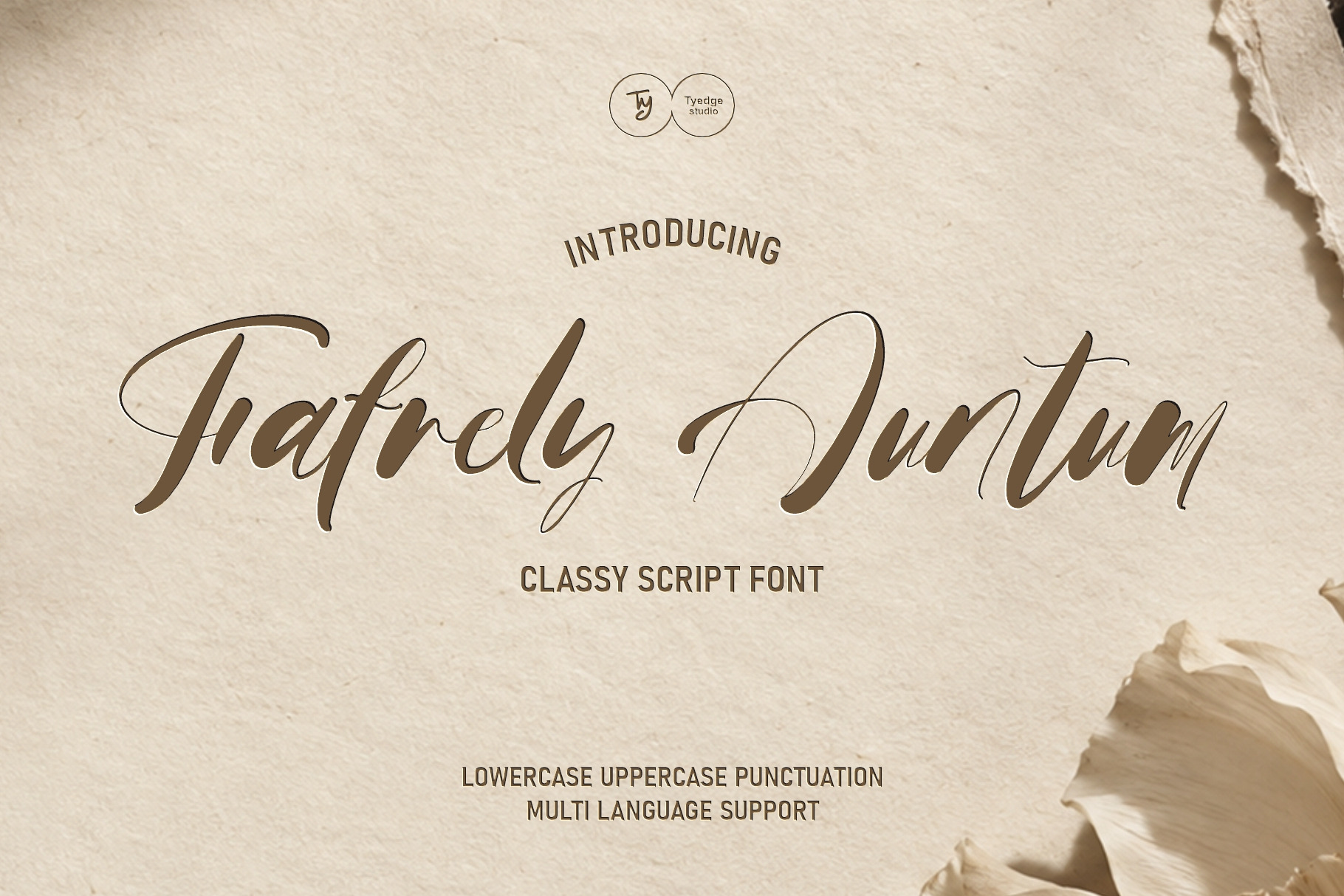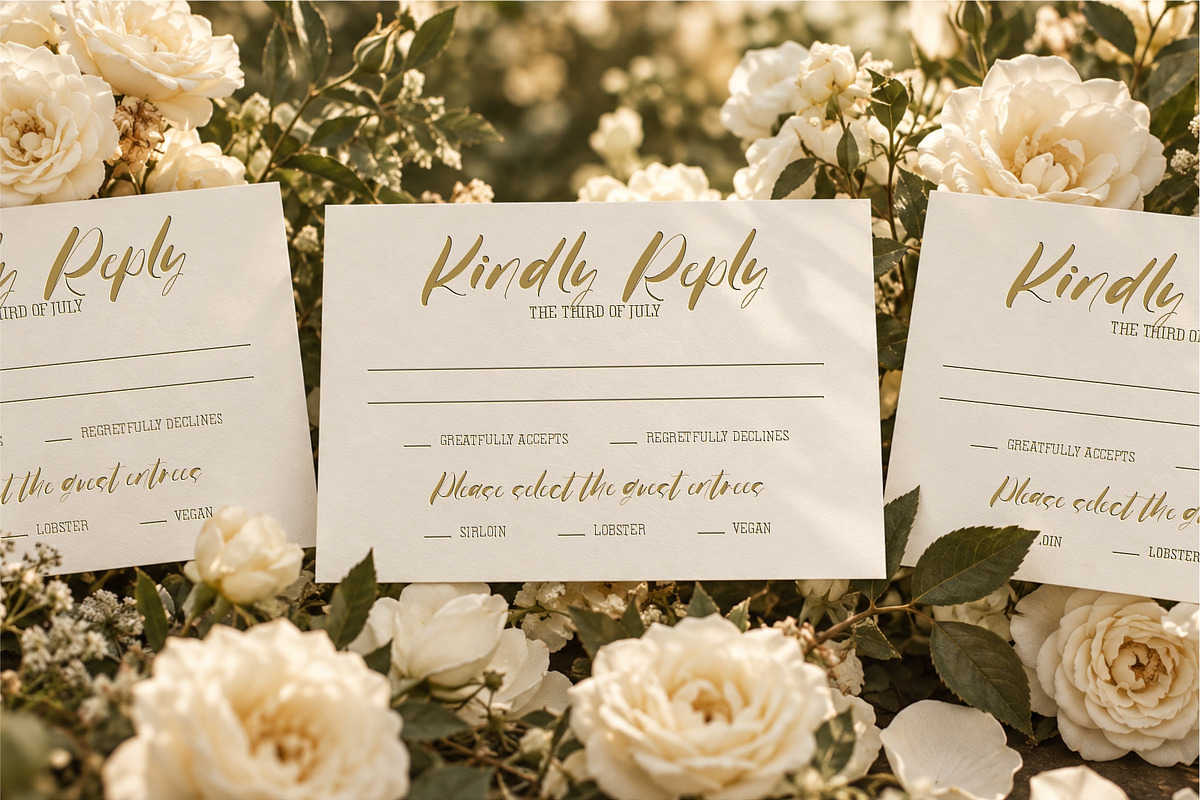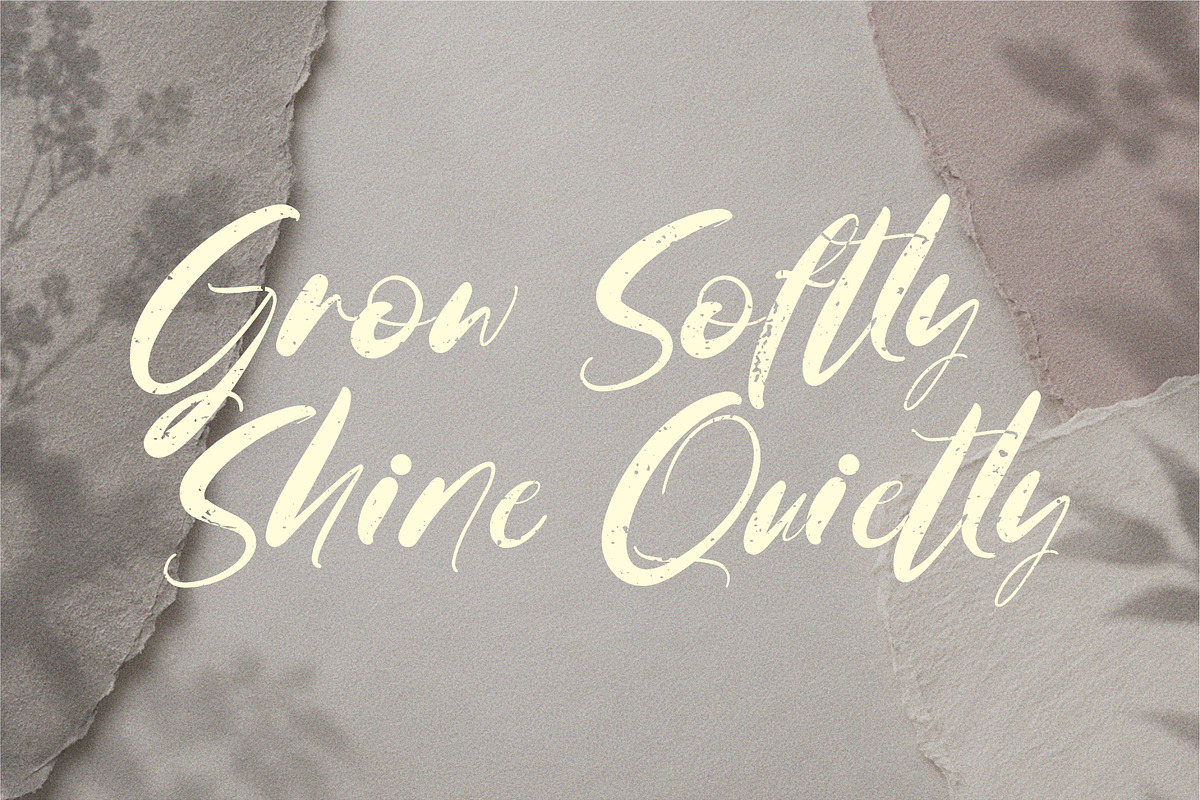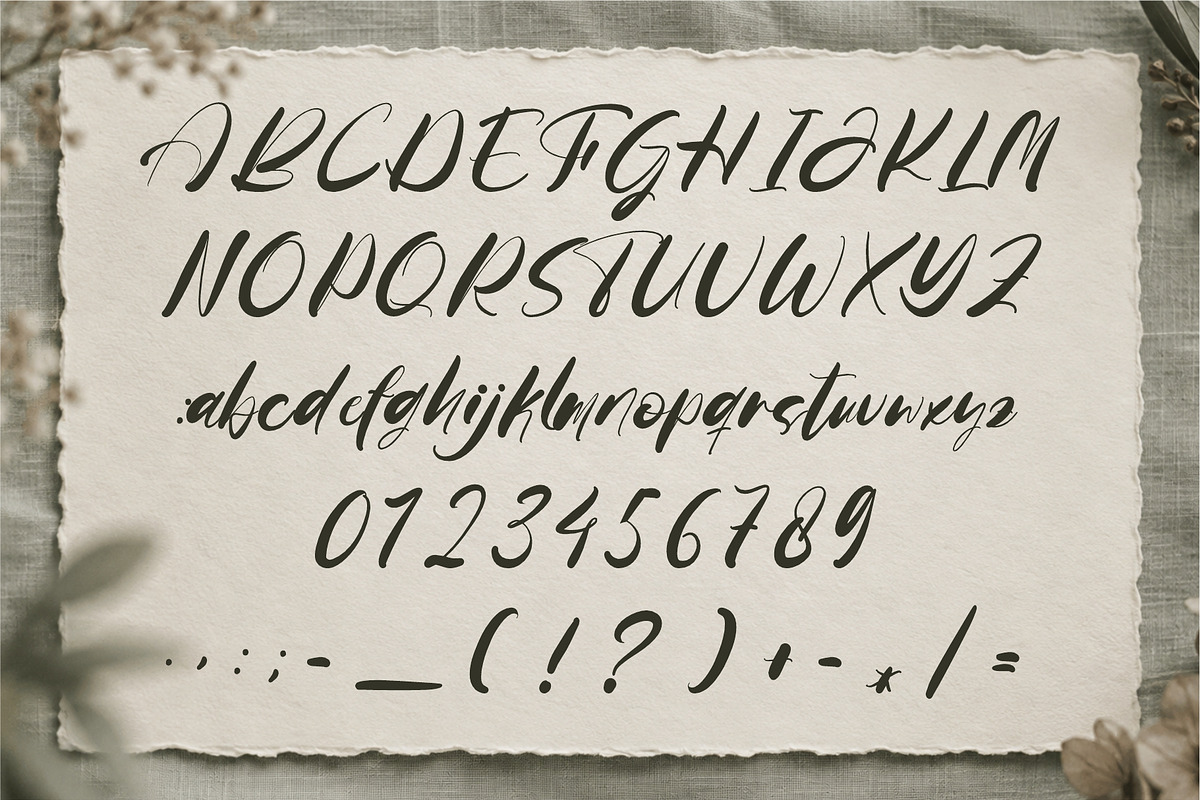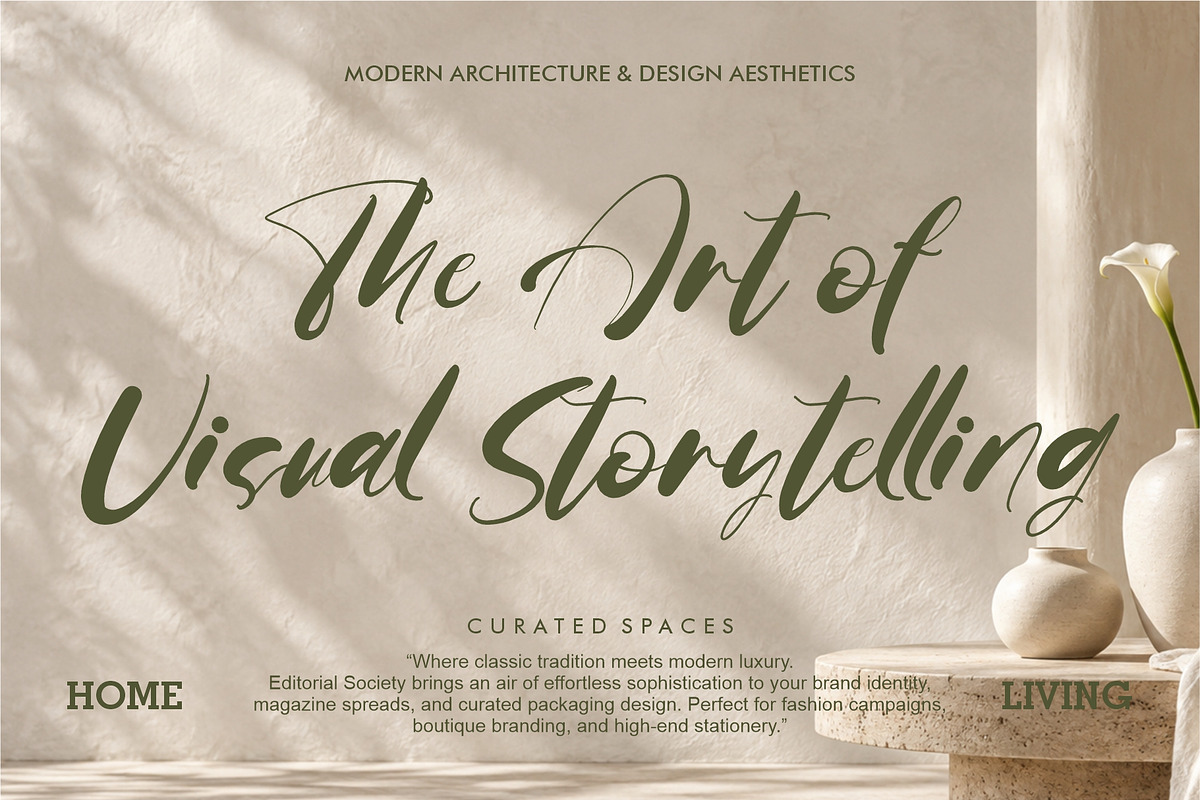
Fafrely Auntum - Classy Script Font
Fafrely Auntum - Classy Script Font with bold, fluid strokes and delicate hairline details. Made to bring a handmade, elegant statement to logos, packaging, social media, invitations, and editorial designs.
Meet Fafrely Auntum, an Classy script font created for designs that deserve a personal, artful touch. Its confident brush strokes, sweeping movement, and fine contrasting details create a look that feels both spontaneous and refined.
Fafrely Auntum is a beautiful choice for branding, beauty and fashion projects, wedding stationery, quotes, product packaging, social content, book covers, and signature-style headlines. Use it large for a striking focal point, or pair it with a clean serif or sans serif for a polished, modern layout.
Font features visible in the character set
- Uppercase and lowercase letters
- Numerals and standard punctuation
Perfect for
Brand identities · logos · packaging · labels · wedding invitations · social-media graphics · quotes · magazine headlines · beauty branding · handmade products